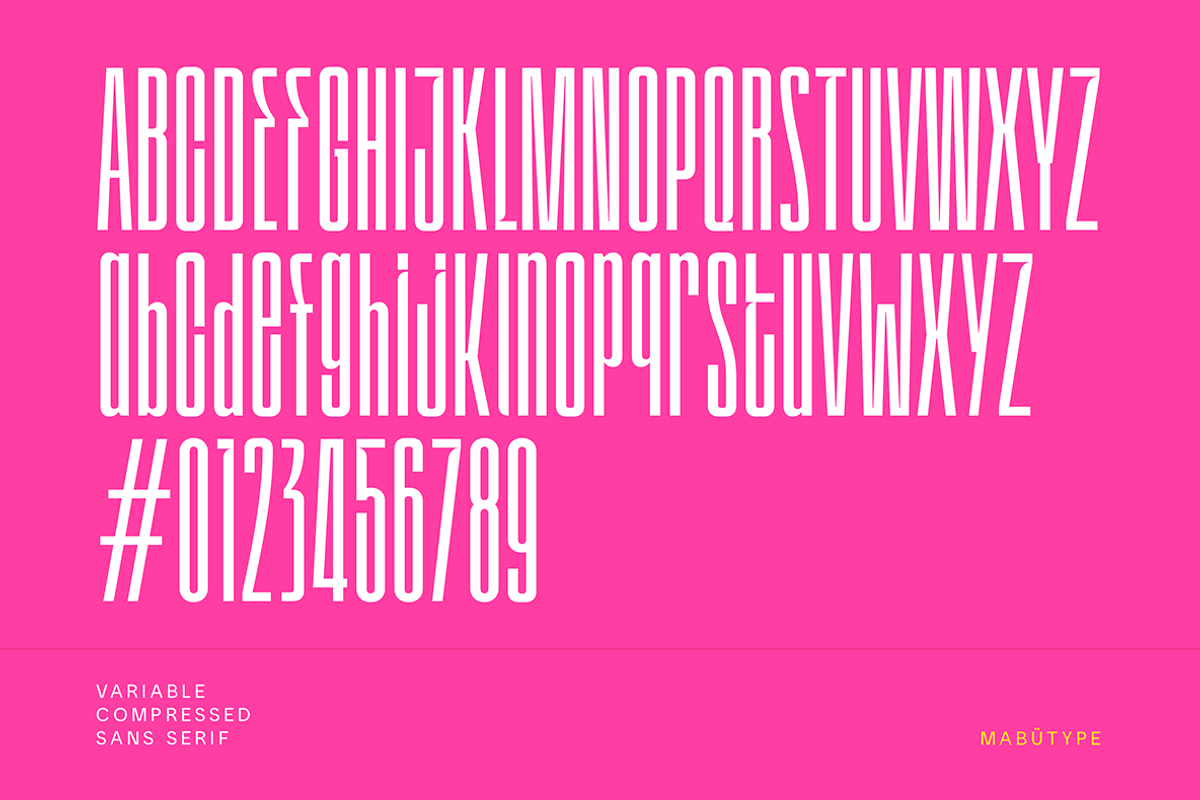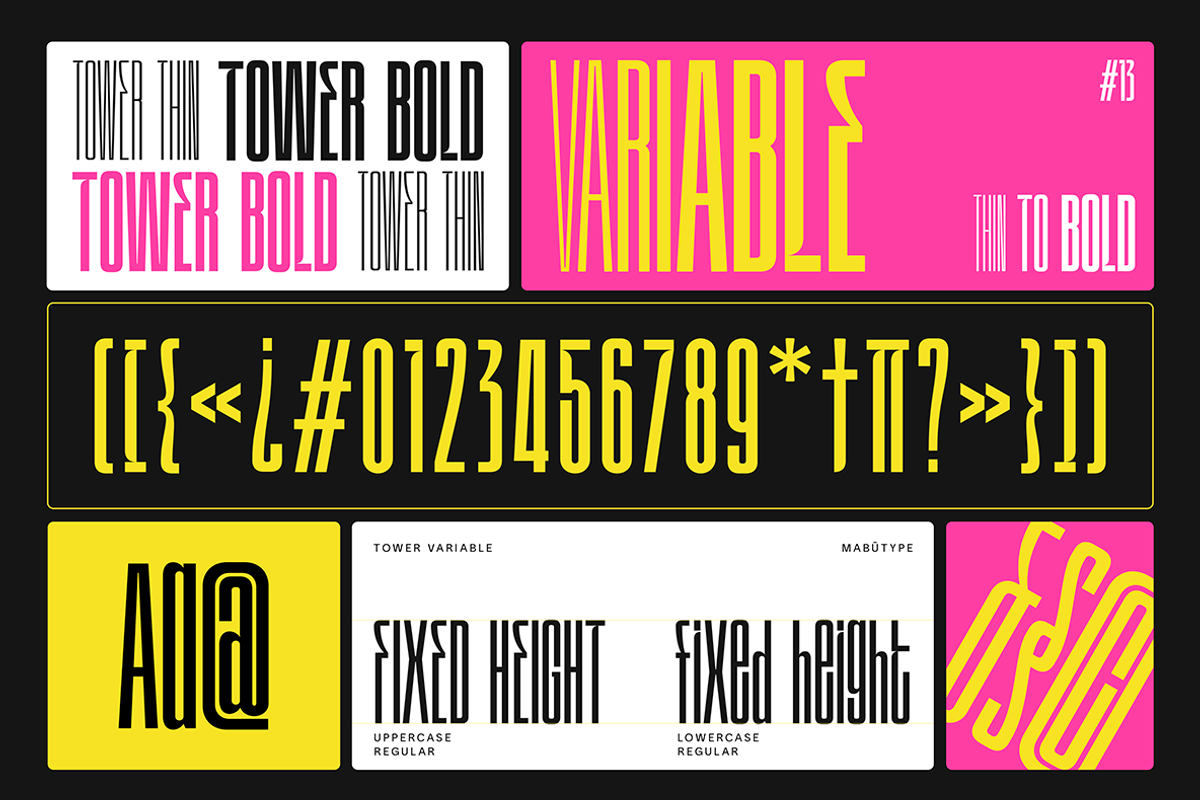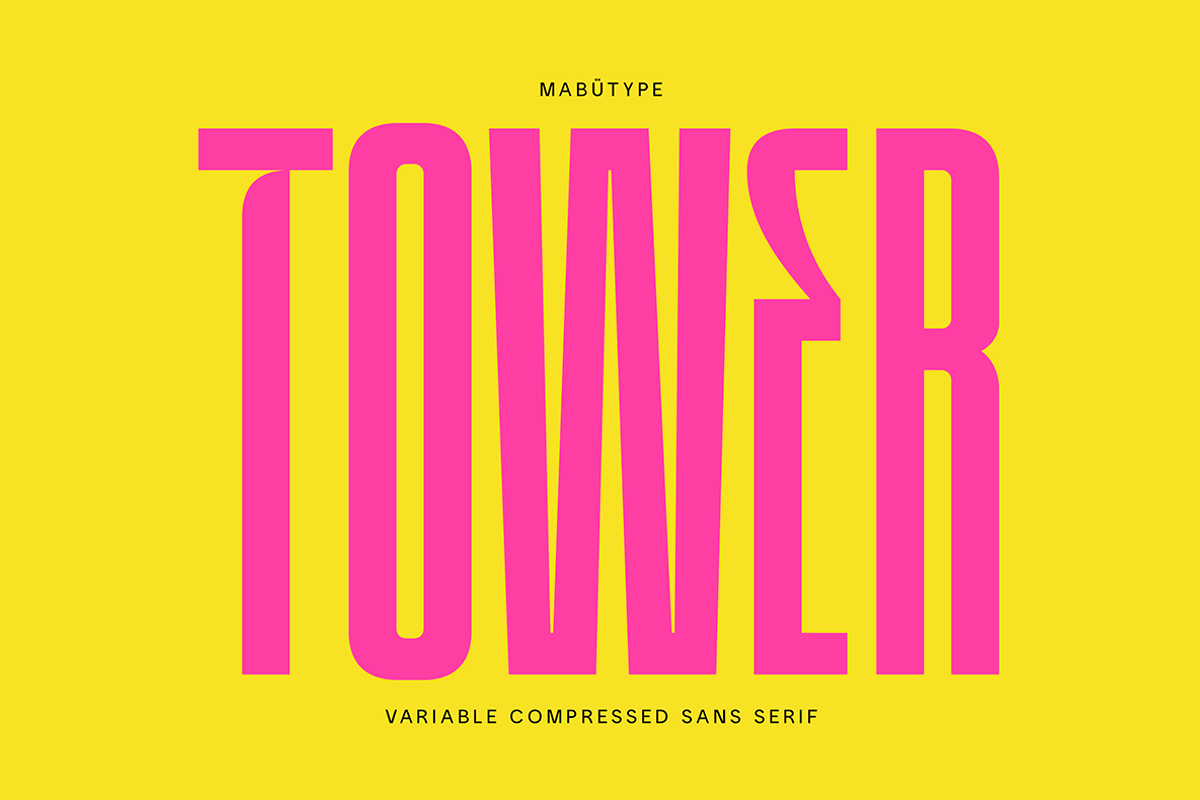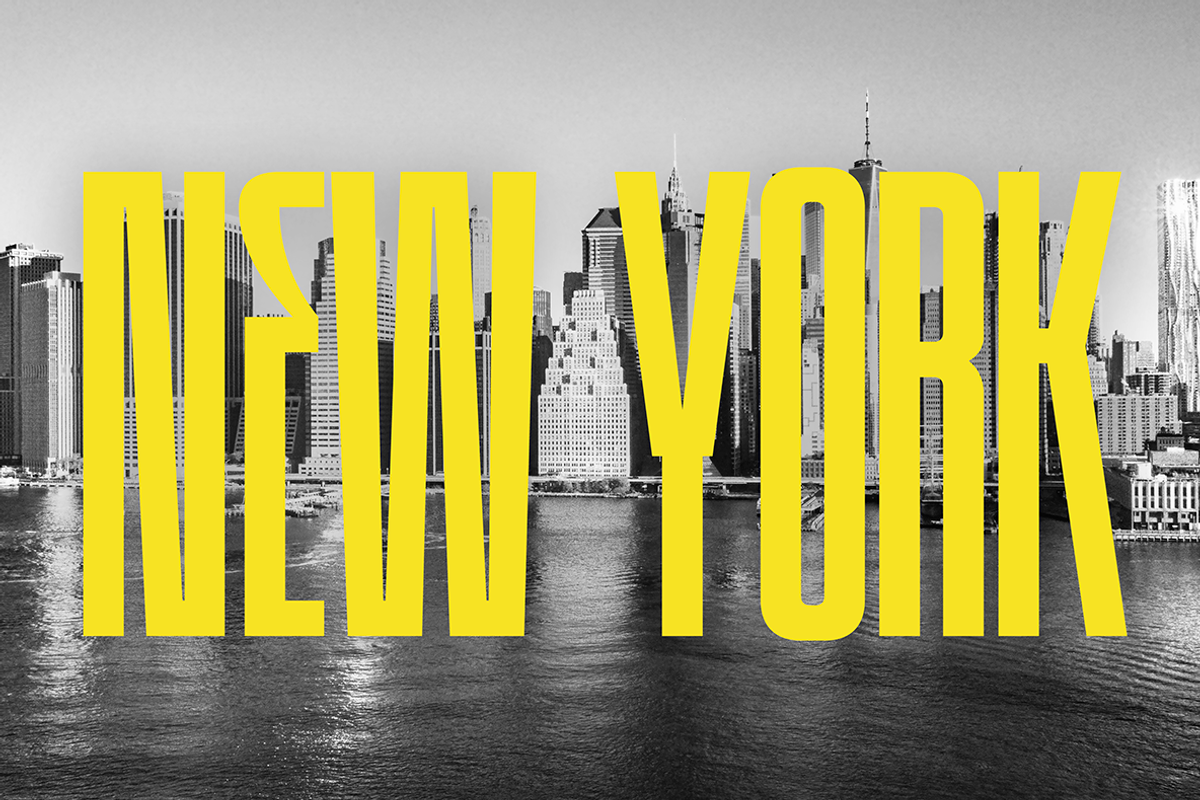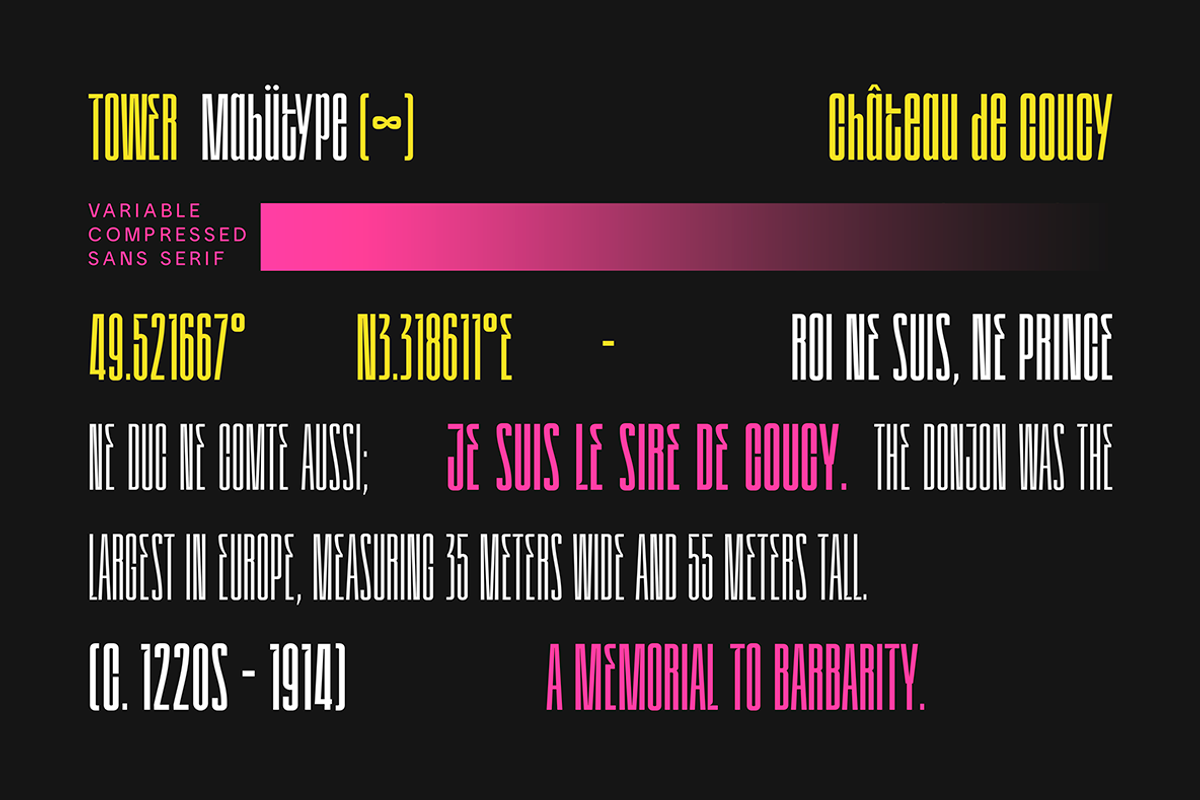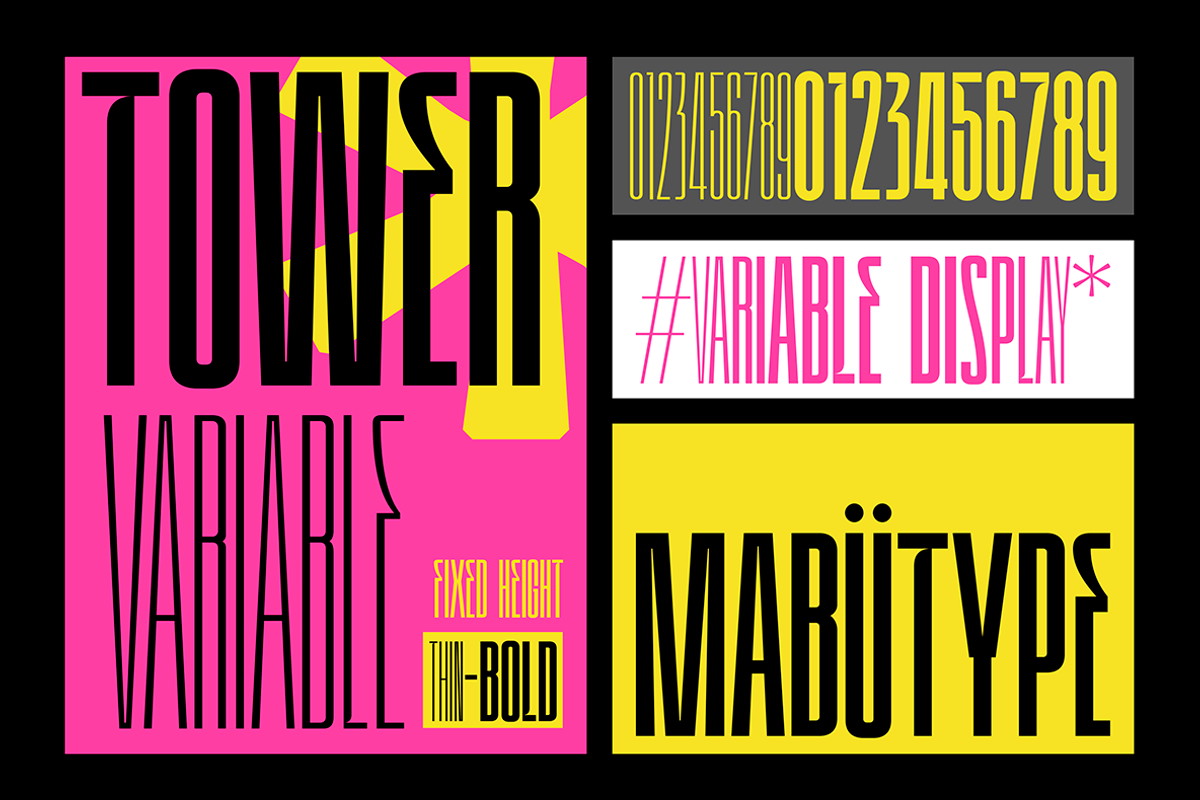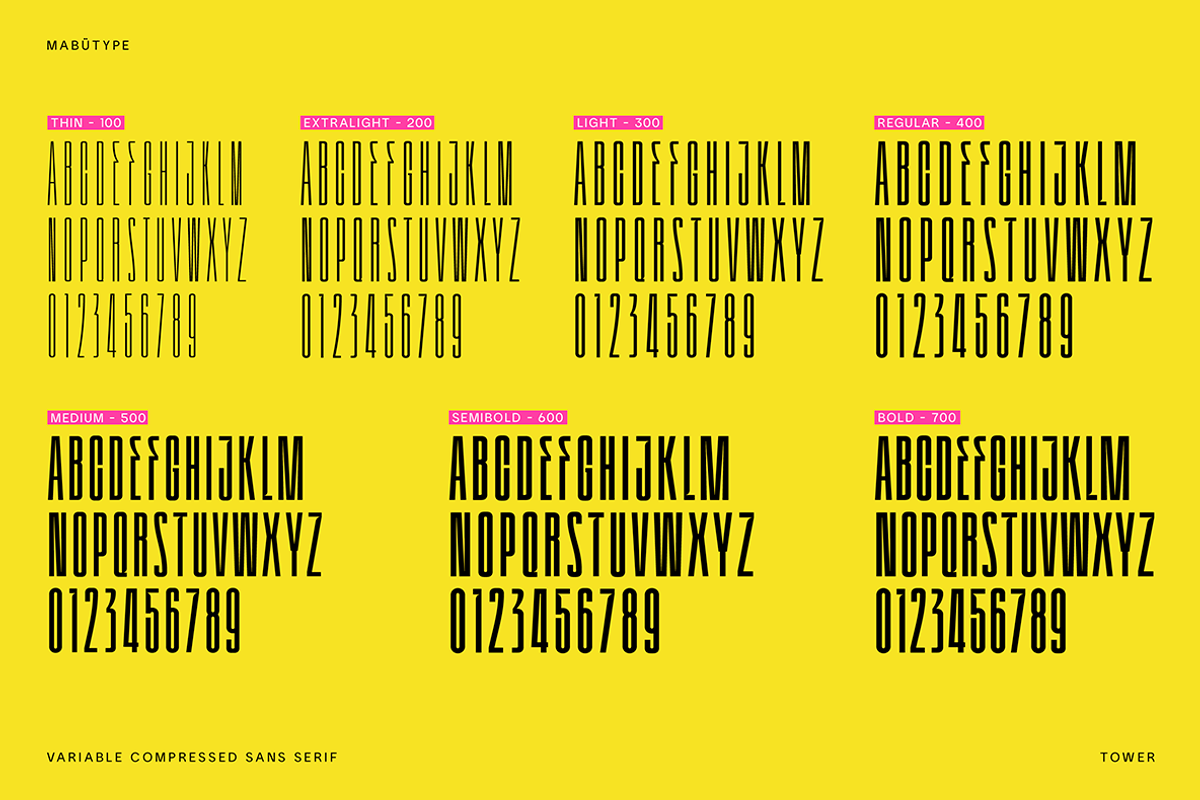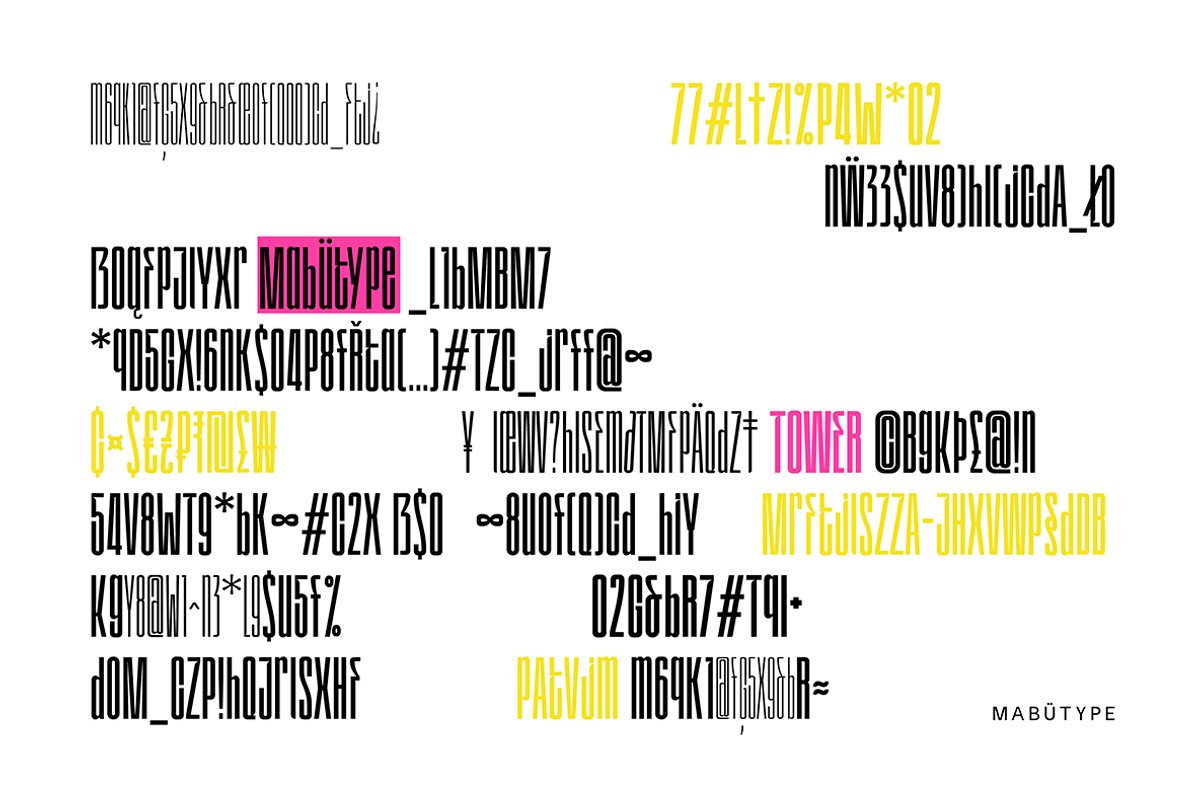
Tower Sans
Tower — Fixed-Height Display With Edge
Tower uses a fixed-height, condensed layout tailored specifically for high-impact display settings in editorial layouts, digital interfaces, and modern visual design. Its distinct, tightly crafted letter compositions create a striking visual rhythm, giving your typography a confident, uncompromising voice. It is an ideal tool for graphic designers and forward-thinking brands aiming to stand out with bold, expressive type.
Built for versatility, Tower features an extensive character set with full multilingual support, ensuring smooth performance across global branding touchpoints. The typeface truly shines in large-scale print and digital applications where visual presence and crisp legibility are non-negotiable—making it the perfect choice for elevate-your-brand visuals, poster art, event flyers, website heroes, promotional banners, and apparel graphics.